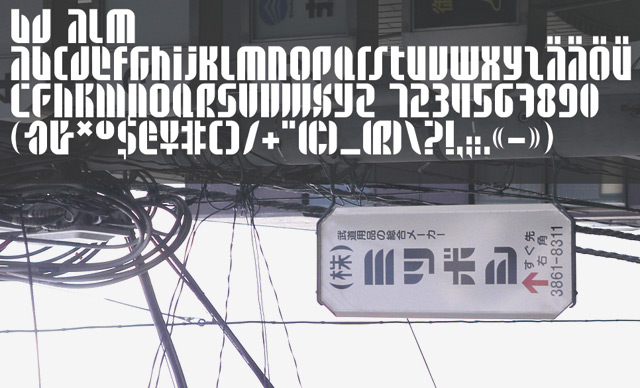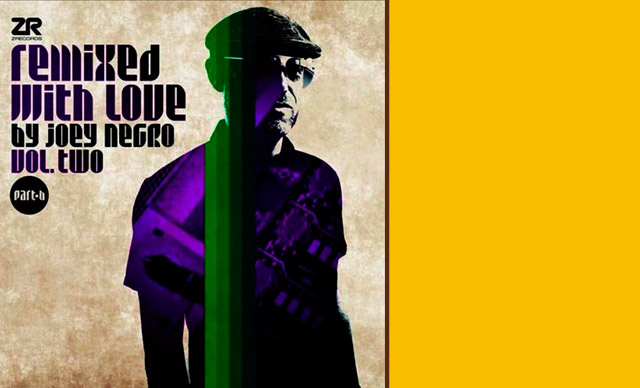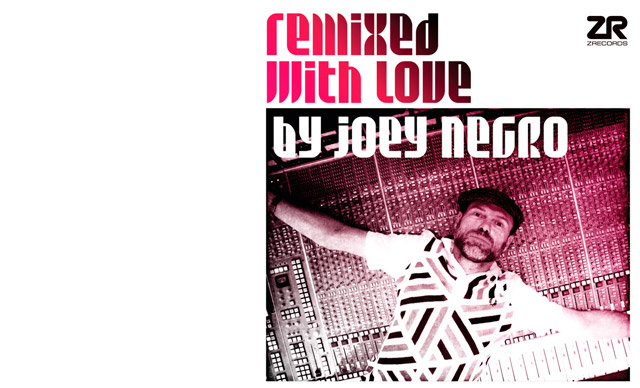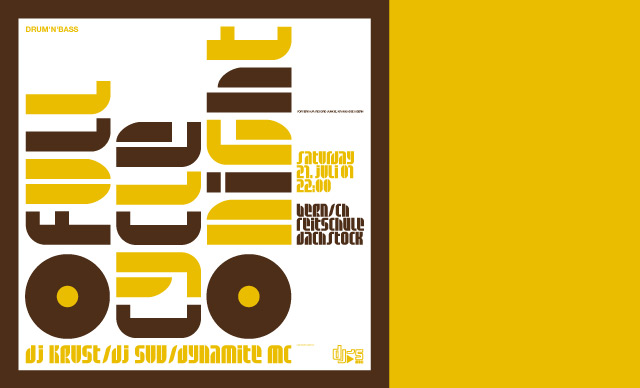
HomePersonal Use FreeBD Alm Personal Use Free BD Alm FacebookTwitterPinterestWhatsApp 1 of 4 About BD Alm Font BD Alm free font is inspired by a katakana signage found in Tokyo Japan. © 2001, Lopetz Büro Destruct for typedifferent.com DOWNLOAD NOW People also explored Marshland Script Font Creslina Font Macrame Aliyo Script Font Hello Shanty Font Ravenna Font Oatmeal Triblend Bella Canvas 8413 Mock Ruglhe Script Font Stack of Books Font 192 0 TagsBD AlmBD Alm Font Previous articleBD FlukeNext articleSenza Bella LEAVE A REPLY Cancel reply Comment: Please enter your comment! Name:* Please enter your name here Email:* You have entered an incorrect email address! Please enter your email address here Website: Save my name, email, and website in this browser for the next time I comment. Personal Use Free Miss Love Personal Use Free Read more about this font Short Message Personal Use Free Read more about this font Shkoder 1989 Personal Use Free Read more about this font Rakesly Personal Use Free Read more about this font BLOG Best Fonts for T-Shirt Design – Top 2025 Picks In 2025, t-shirt design has become more than just fashion—it's a form of self-expression. Whether you're... To increase your work productivity, choose the most readable fonts. Transform Your Website: Elevate Your Typography with 7 Best Web Font Generators Free Fonts Risk: Why Free Fonts Can Be Dangerous for Designers